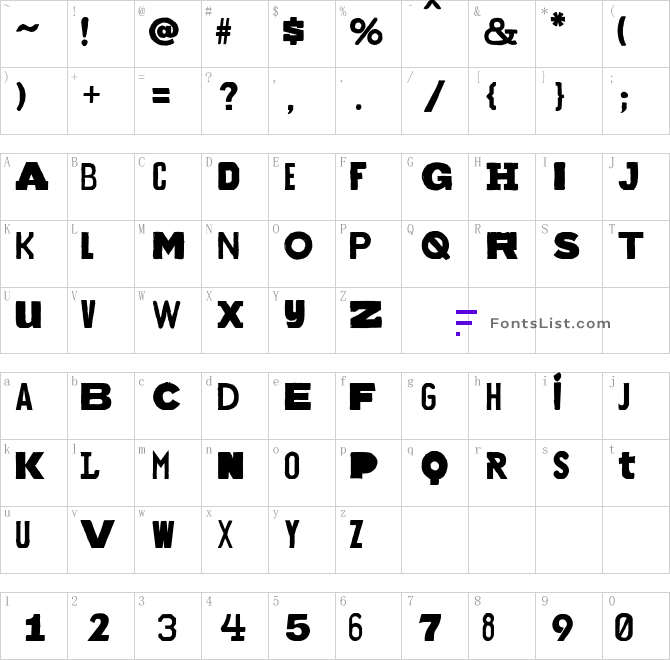
- Font Name:Bakunin Regular
Bakunin-Regular.ttf is a very beautiful artistic font, Bakunin-Regular.ttf is widely used in the design and printing of various books and pictures,Bakunin-Regular.ttf has a strong visual impact,Bakunin-Regular.ttf is a commonly used font in newspapers, magazines and books, and is used in posters, e-commerce Poster design, store design, logo design, font design and other fields.Bakunin-Regular.